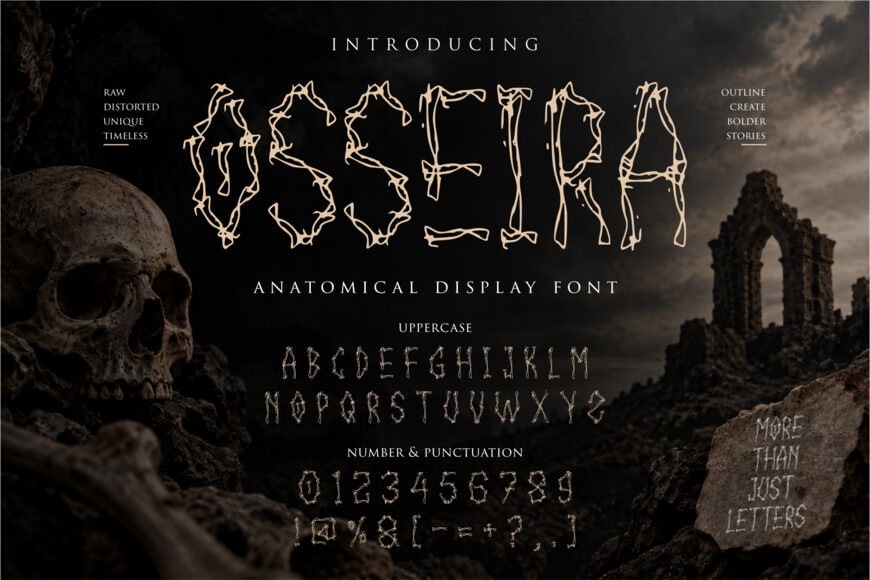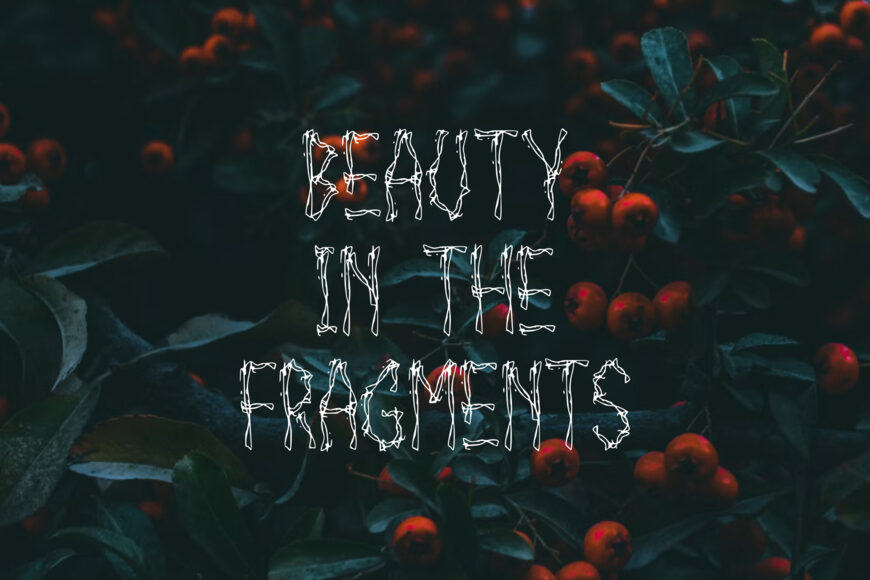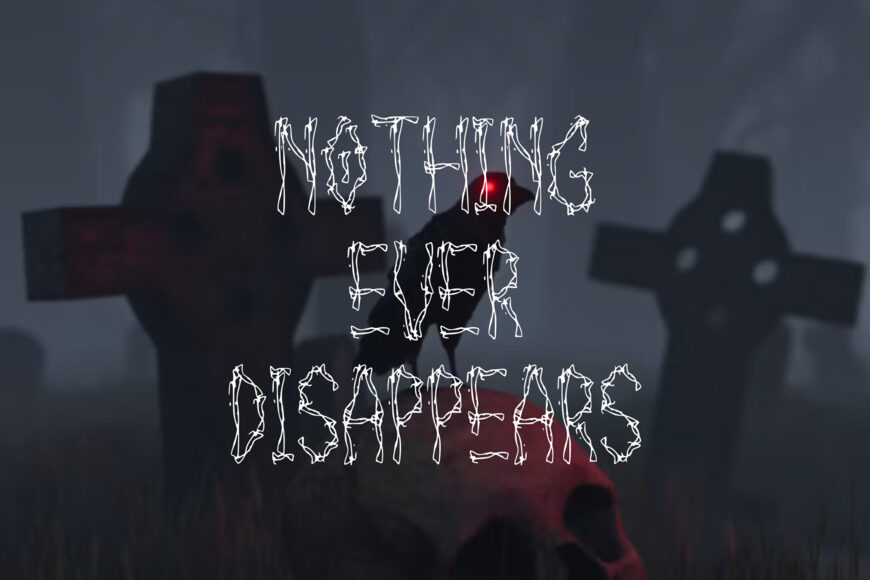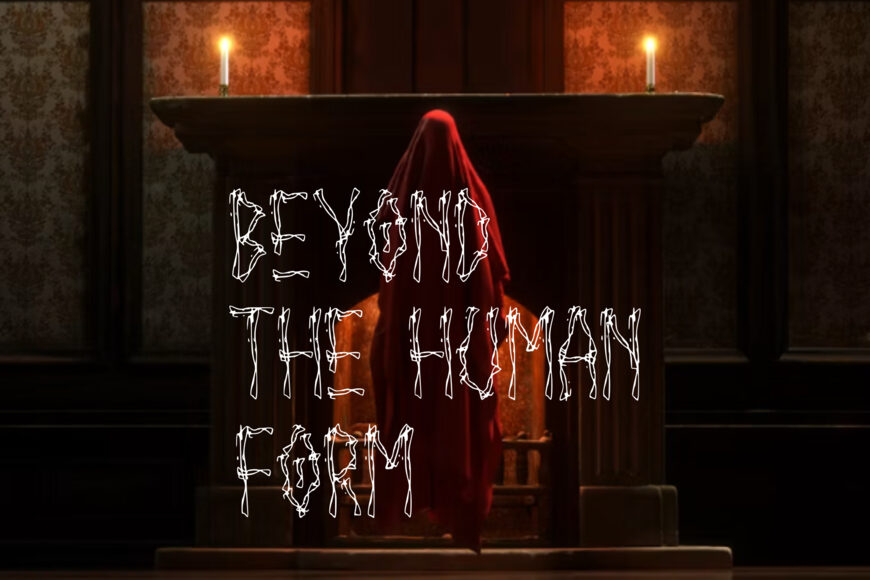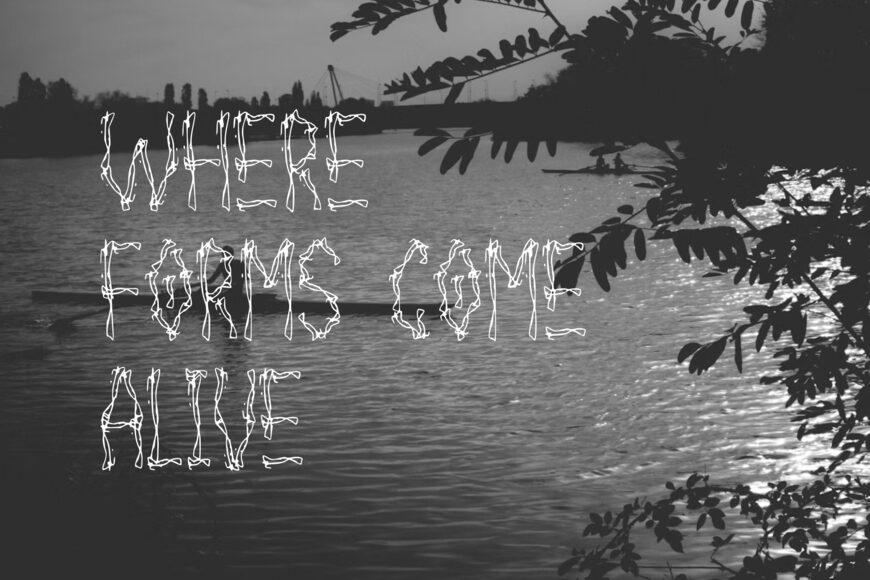
Osseira is a raw, distorted, and highly experimental anatomical display font inspired by skeletal structures, organic textures, and the intricate forms of human anatomy. Its irregular linework and fragmented letterforms create a striking visual language that feels mysterious, dark, and timeless.
Osseira is perfect for horror posters, dark editorial designs, album artwork, movie titles, gothic branding, tattoo concepts, alternative fashion, book covers, merchandise, experimental layouts, and atmospheric visual identities. Whether used for a single powerful word or an entire headline, Osseira is made to create an unforgettable impression and push display typography into a darker, more artistic direction.